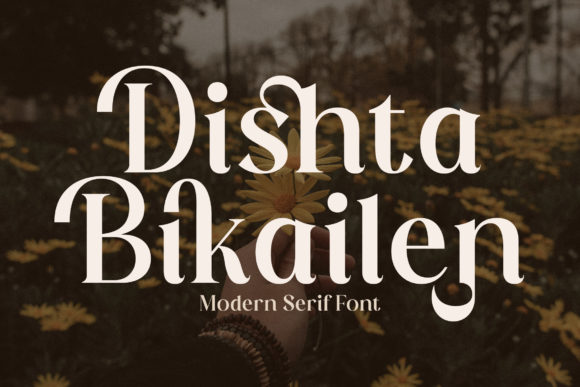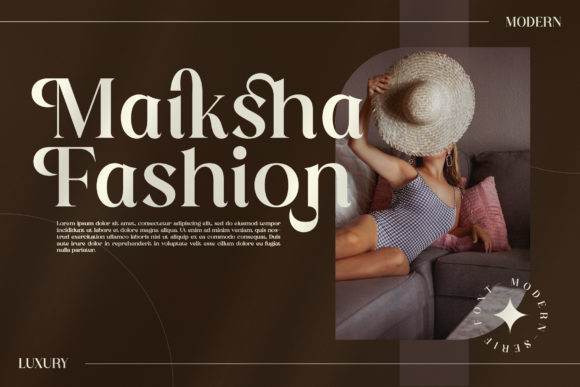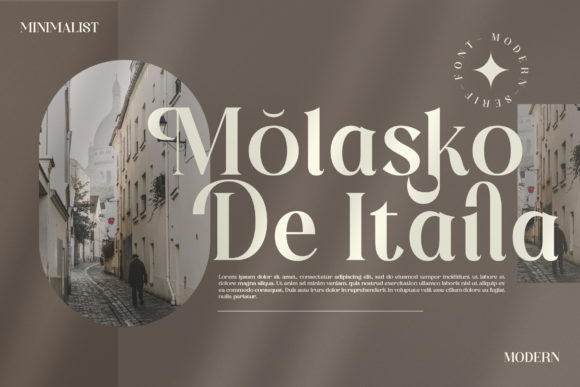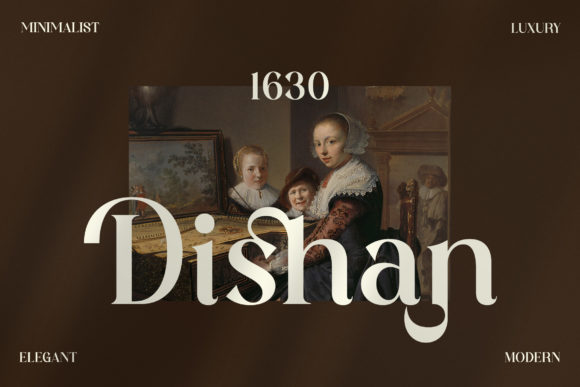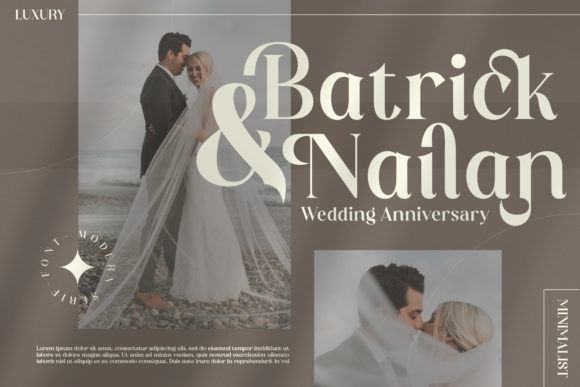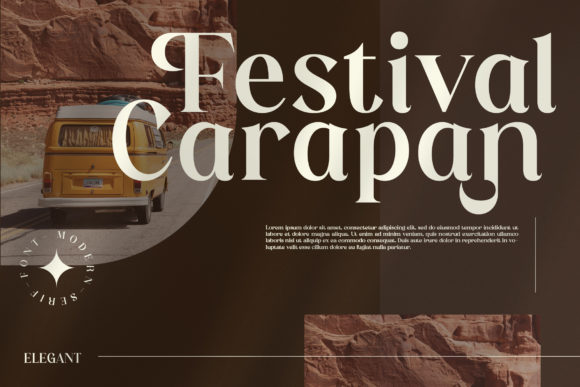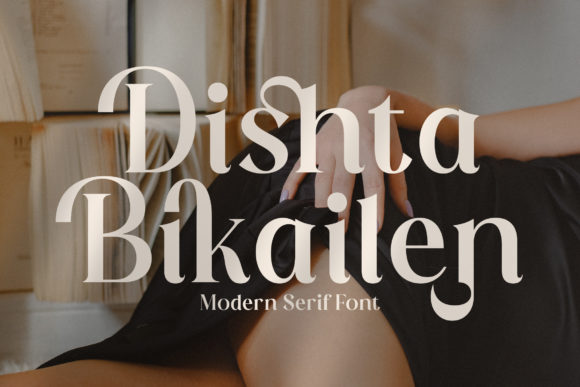
Introducing Dishta Bikailen Font: A Modern Serif Typeface for Elegant Designs
In the world of typography, a font can make all the difference in creating a lasting impression. For designers and crafters looking for a unique and luxurious touch, Dishta Bikailen Font is an excellent choice. This modern serif typeface boasts a classic elegance with a modern twist, making it perfect for a wide range of design projects.
What Makes Dishta Bikailen Font Stand Out?
Dishta Bikailen Font is a carefully crafted typeface that exudes sophistication and refinement. Its serif design adds a touch of classic elegance, while its modern look ensures it remains fresh and contemporary. The font’s unique style is perfect for designers looking to create something distinctive and eye-catching.
Perfect for Luxury and Elegant Designs
Dishta Bikailen Font is ideal for designs that require a luxurious and elegant feel. Its sophisticated style makes it perfect for:
- Elegant Logos: Create a lasting impression with a logo that exudes luxury and sophistication.
- Book or Movie Title Design: Add a touch of elegance to your book or movie titles with this stunning font.
- Fashion Brands: Elevate your fashion brand with a font that screams luxury and style.
- Magazines: Create a sophisticated and high-end feel for your magazine with Dishta Bikailen Font.
- Clothes: Use this font to create stunning labels and branding for your clothing line.
- Lettering: Add a touch of elegance to your lettering projects with this beautiful font.
- Quotes: Create inspiring and elegant quotes with Dishta Bikailen Font.
Why Choose Dishta Bikailen Font?
With so many fonts available, why choose Dishta Bikailen Font? Here are just a few reasons:
- Unique Style: Dishta Bikailen Font has a unique style that sets it apart from other fonts.
- Modern and Classic: This font combines modern and classic elements, making it perfect for a wide range of designs.
- Elegant and Luxurious: Add a touch of elegance and luxury to your designs with this stunning font.
- Versatile: Use Dishta Bikailen Font for a variety of design projects, from logos to magazines.
Tips for Using Dishta Bikailen Font
To get the most out of Dishta Bikailen Font, here are a few tips:
- Use it sparingly: Use Dishta Bikailen Font sparingly to create a lasting impression.
- Pair it with other fonts: Experiment with pairing Dishta Bikailen Font with other fonts to create a unique look.
- Adjust the size and color: Adjust the size and color of the font to suit your design needs.
Dishta Bikailen Font is a stunning serif typeface that is perfect for designers and crafters looking to add a touch of elegance and luxury to their designs. With its unique style, modern look, and classic elegance, this font is sure to make a lasting impression. Whether you’re creating a logo, book or movie title, fashion brand, magazine, or clothes, Dishta Bikailen Font is an excellent choice.